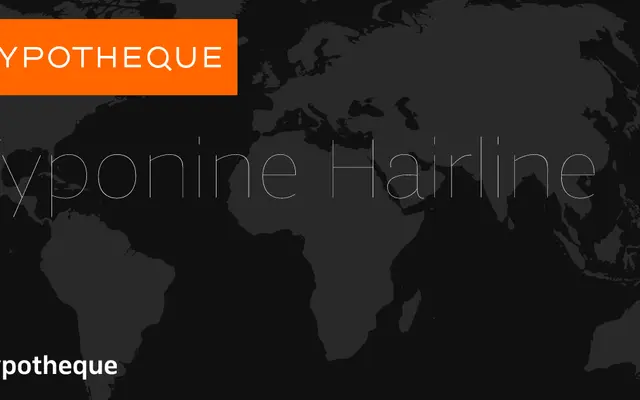
Typonine Hairline
Typotheque · Nikola Djurek · 2009
A hairline-weight humanist sans by Nikola Djurek, designed exclusively for very large sizes where its near-zero stroke contrast still reads as warm and refined.
Part of Nikola Djurek's wider Typonine collection, this hairline cut sits at the extreme thin end of the family and is intended for exhibition settings, posters and large editorial headlines. Despite having no visible contrast between thick and thin strokes, the letterforms retain the warm, personal character of a humanist sans. Eight numeral styles are included, from proportional lining to circled inverted figures, with the option to set a custom default. Cyrillic was drawn by Ilya Ruderman, extending coverage across a substantial range of Latin and Cyrillic languages.
Described explicitly as a humanist sans serif, the Hairline is the extreme thin cut of the broader Typonine family, designed with warm, balanced proportions despite near-zero stroke contrast.